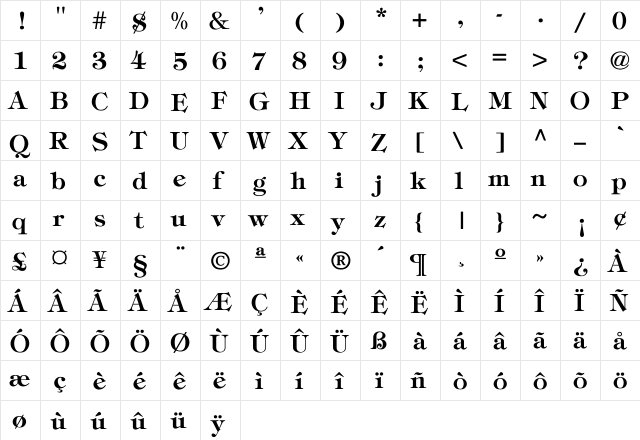
Tori-Bold Regular
Design Context for Tori-Bold Typeface
Tori-Bold is a composed and adaptable typeface that performs quietly and consistently across a wide range of design contexts. Its bold stroke weight gives it real presence on the page.
Pro Tip: Pair Tori-Bold with a font of contrasting weight or personality to build a more expressive typographic hierarchy.